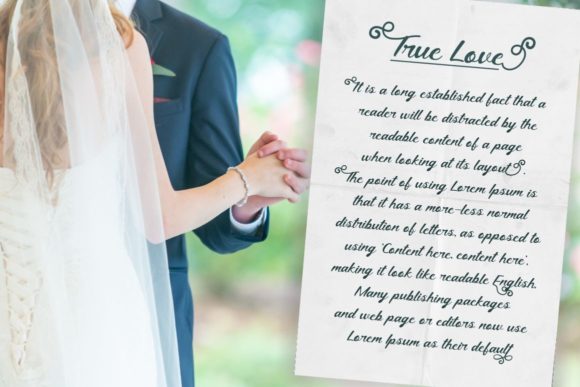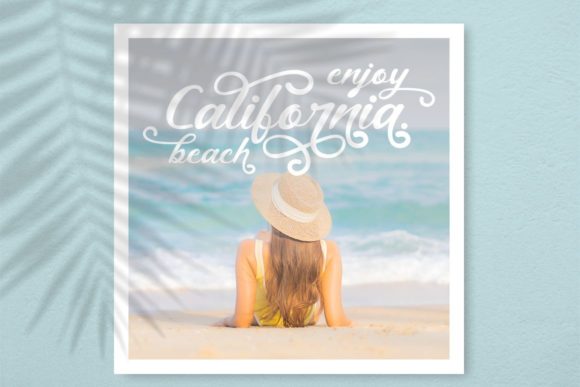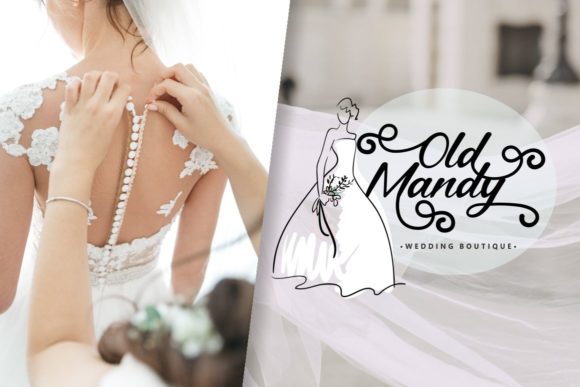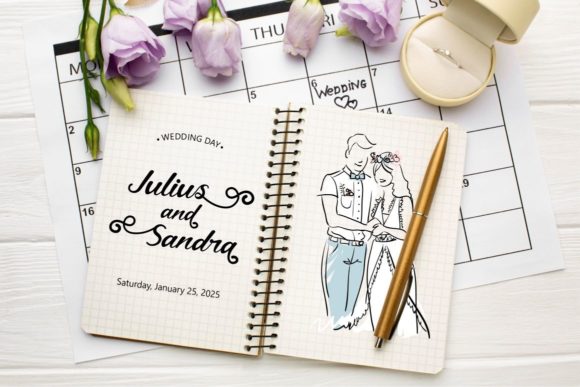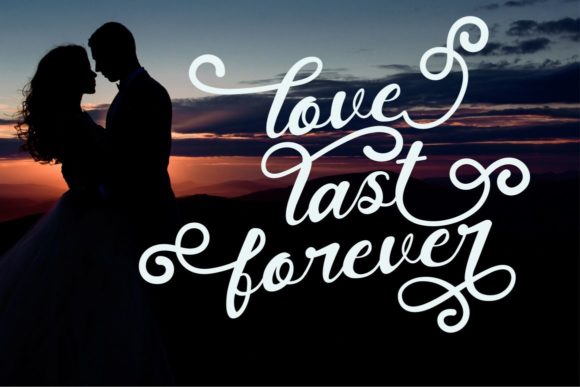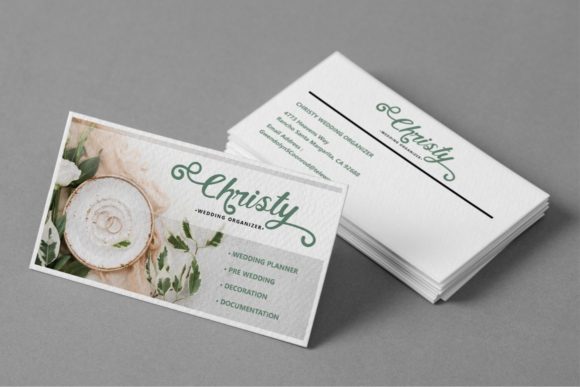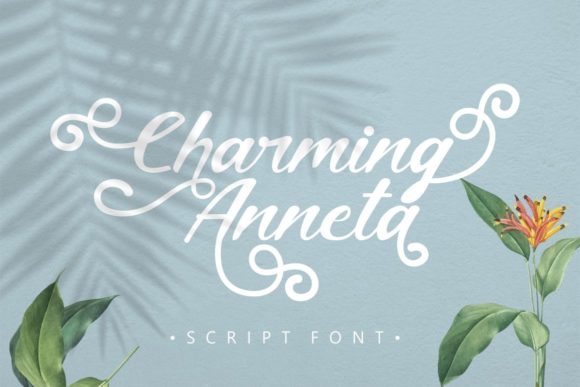
Introducing Charming Anneta Font: Elevate Your Designs with Elegance
In the world of typography, a font can make all the difference in the aesthetic and effectiveness of a design. For those seeking a touch of elegance and sophistication, the Charming Anneta font is a dazzling script font that is sure to captivate. Neatly crafted and highly detailed, Charming Anneta offers a beautiful solution for designers and crafters looking to add a unique flair to their projects.
What Makes Charming Anneta Special?
Charming Anneta is not just any script font; it’s a meticulously designed typeface that stands out for its neat craftsmanship and high level of detail. This font is perfect for a variety of design applications, from elegant branding and advertising to beautiful stationery and DIY crafts. Its sophisticated look is sure to add a touch of class to any project.
One of the key features that sets Charming Anneta apart is its PUA (Private Use Area) encoding. This means that users can access all glyphs and swashes with ease, providing a wide range of creative possibilities. PUA encoding allows designers to work more efficiently, as they can quickly find and use the characters they need without having to navigate through complicated font menus.
Applications of Charming Anneta Font
The versatility of Charming Anneta makes it suitable for a multitude of design projects. Here are some of the areas where this font truly shines:
• Branding and Logo Design: Create memorable and elegant logos that stand out.
• Stationery and Invitations: Add a touch of sophistication to your cards, invitations, and letters.
• Advertising and Marketing Materials: Elevate your ads and marketing materials with a classy and professional look.
• DIY Crafts and Scrapbooking: Perfect for crafters, this font can add a personal and elegant touch to handmade projects.
Why Choose Charming Anneta?
Choosing Charming Anneta for your design projects comes with several benefits:
• Unique and Eye-Catching: Stand out from the crowd with a font that is both unique and visually appealing.
• High Versatility: Suitable for a wide range of design applications.
Tips for Using Charming Anneta Effectively
To get the most out of Charming Anneta, consider the following tips:
• Mix and Match: Don’t be afraid to experiment with different glyphs and swashes to create a unique look.
• Pay Attention to Spacing: Adjust the spacing between letters and words to enhance readability and aesthetics.
• Combine with Other Fonts: Pair Charming Anneta with complementary fonts for added visual interest.
Charming Anneta is more than just a font; it’s a design tool that can elevate your projects to new heights of elegance and sophistication. With its neat craftsmanship, high detail, and PUA encoding for easy access to glyphs and swashes, it’s an excellent choice for designers and crafters alike. Whether you’re working on branding, stationery, advertising, or DIY crafts, Charming Anneta offers the perfect blend of beauty and functionality. Add this dazzling script font to your collection today and discover the difference it can make in your designs.